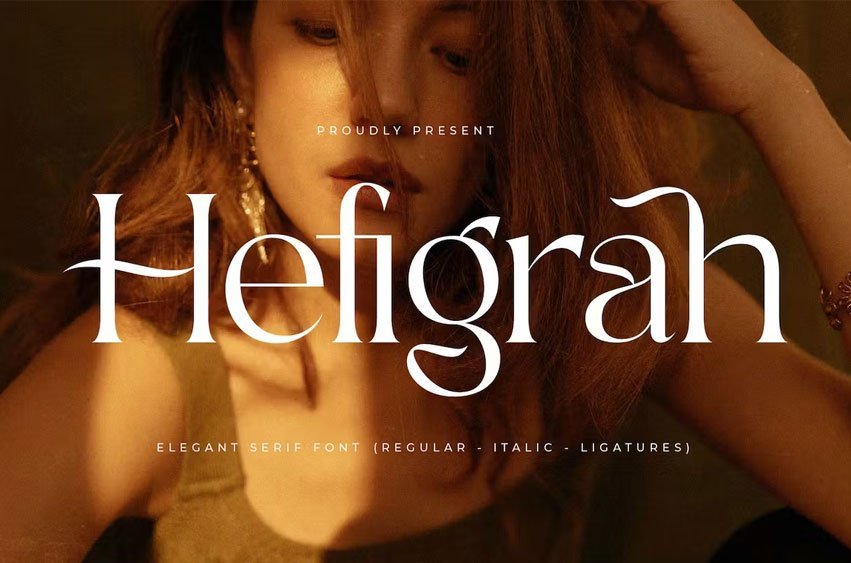
Hefigrah Font
Hefigrah Font is suitable to complement your digital and printed creative products. This font is perfect for posters, social media posts, branding, personal projects, etc.